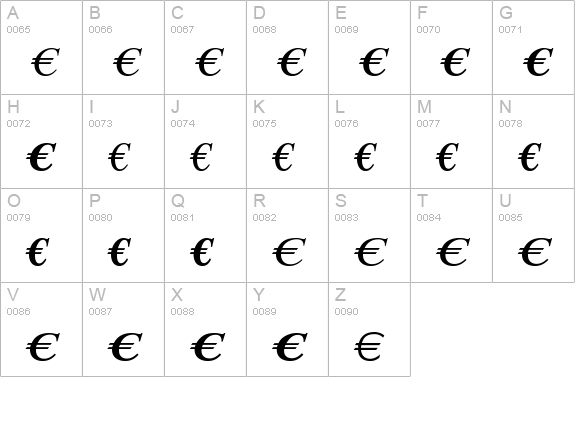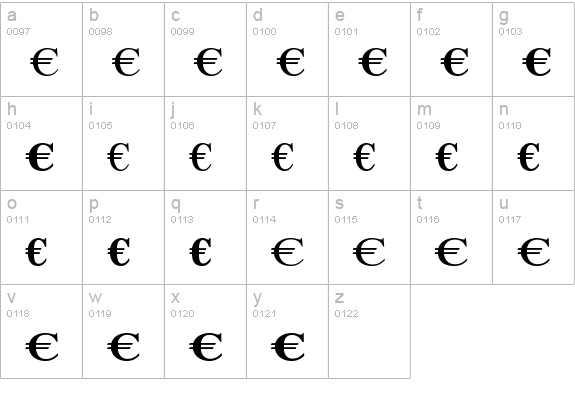
EuroSerifEF-Two is a versatile and elegant serif font that exudes sophistication and professionalism. With its clean lines and classic design, this font is perfect for a wide range of projects, from branding to editorial design. The timeless beauty of EuroSerifEF-Two makes it a standout choice for any designer looking to add a touch of refinement to their work. Best of all, EuroSerifEF-Two is available for free download at FontsMarket.com. This means that you can easily access this high-quality font without any cost, making it a valuable addition to your font library. Don't miss out on the opportunity to enhance your projects with EuroSerifEF-Two - download it today and elevate your design to the next level.